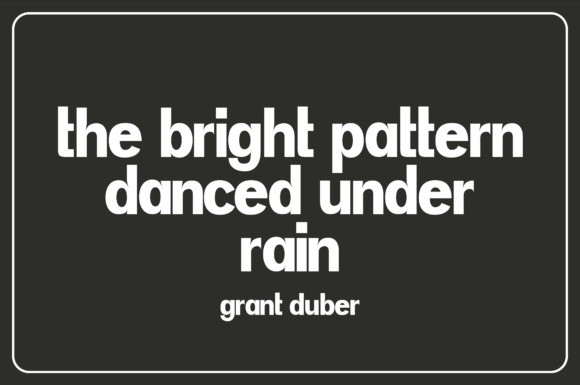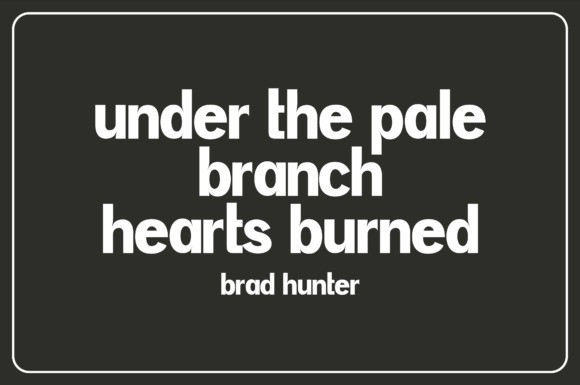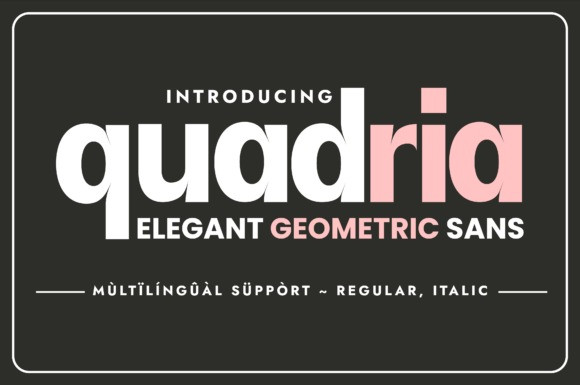
Quadria Font
Quadria Font – a sleek sans serif font that epitomizes modernity and minimalistic elegance. A geometric marvel, Quadria transforms ordinary body text and headings into visual poetry. Ideal for cutting-edge websites, sleek magazine layouts, and craft projects that demand a contemporary twist, its versatility is its strongest suit. Perfect for enriching brand identities through logos, elevating the appeal of product packaging, or bringing a dynamic edge to signage, Quadria is your key to unlocking a world of design potential. Experience the magic of Quadria now, and catapult your designs to stellar heights!